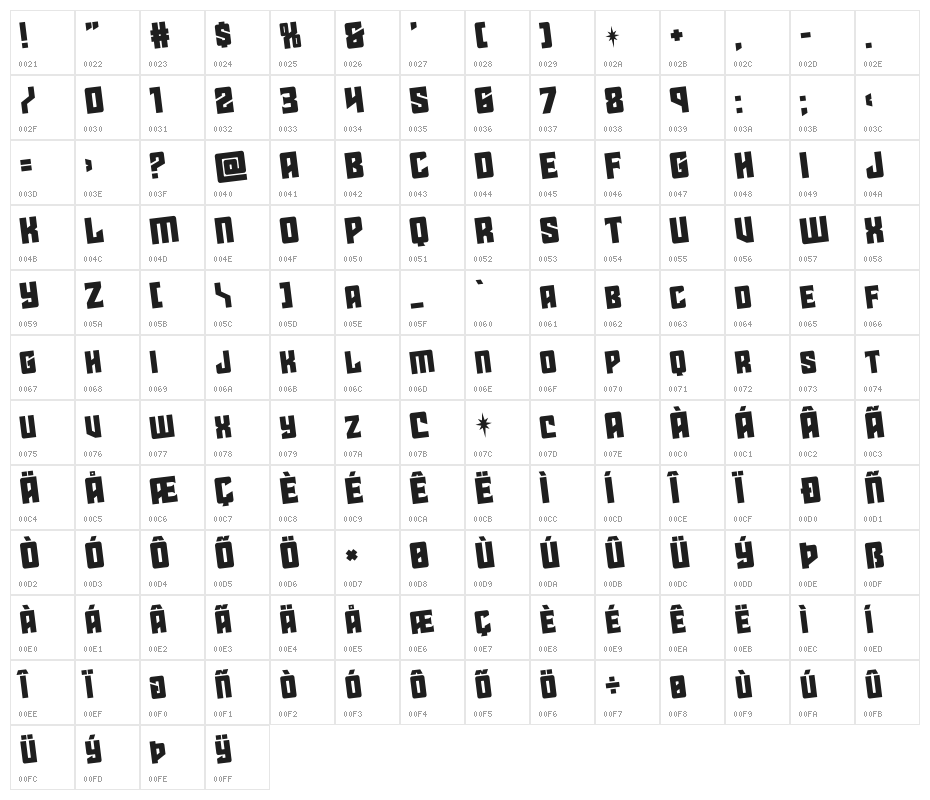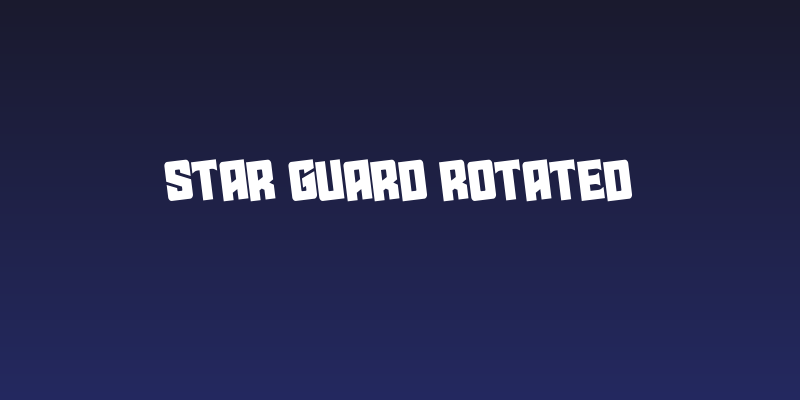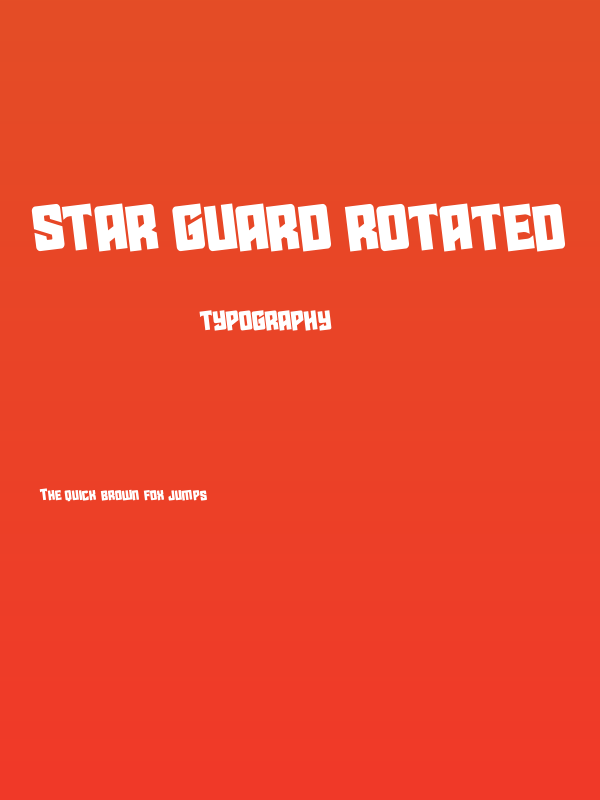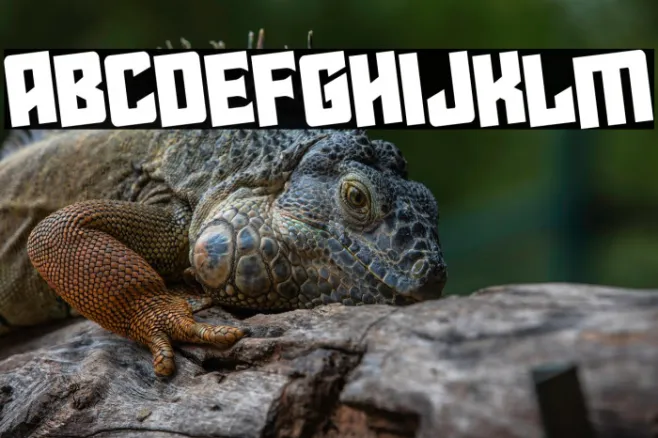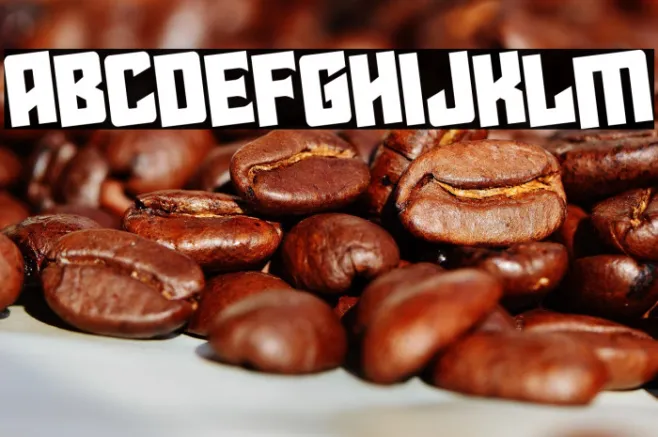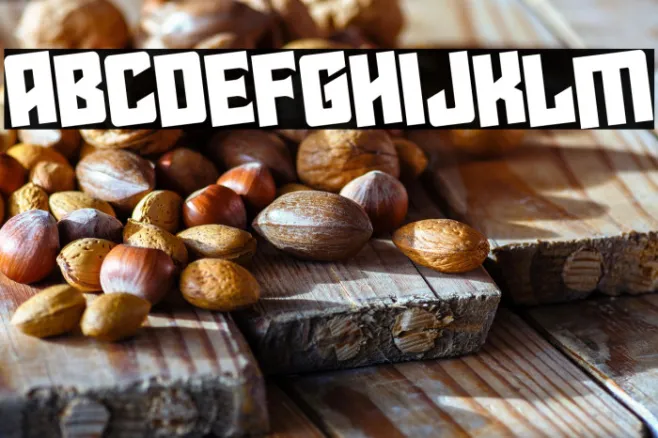
Star Guard Rotated Font
Star Guard Rotated Description
This font features a bold and striking design with thick, angular strokes that create a strong visual impact. The characters are uniformly wide, with a slightly condensed appearance that enhances their boldness. The uppercase letters are particularly prominent, with sharp edges and a geometric style that conveys a sense of strength and modernity. The numbers and special characters maintain this robust aesthetic, ensuring consistency across all glyphs. The font's unique style makes it ideal for projects that require a commanding presence.
| Proposed Projects | Ideal for posters, headlines, logos, and branding materials that require a bold and impactful look. |